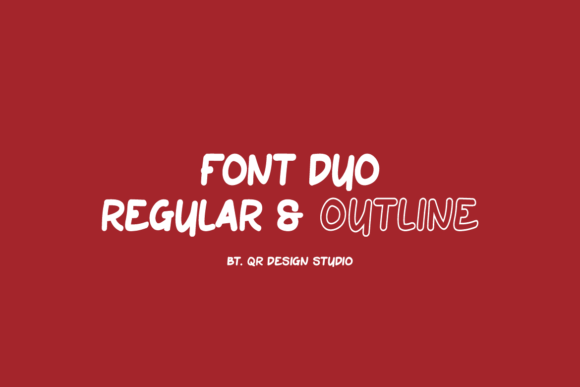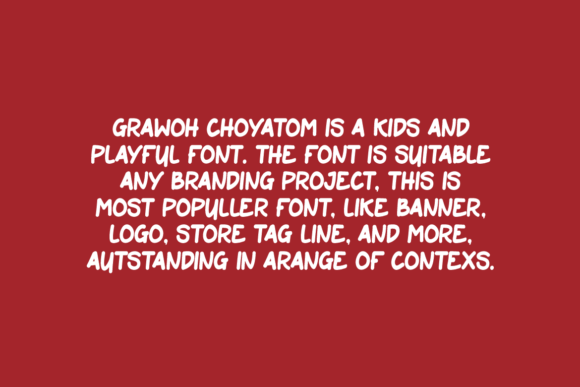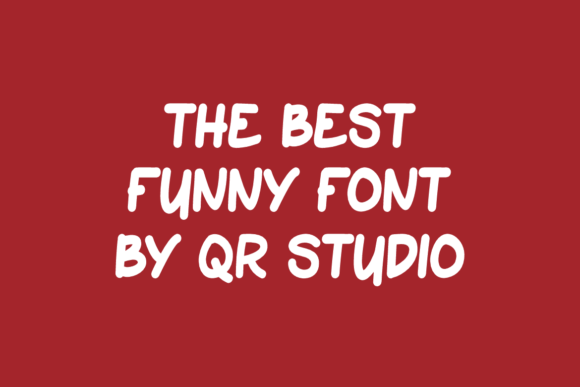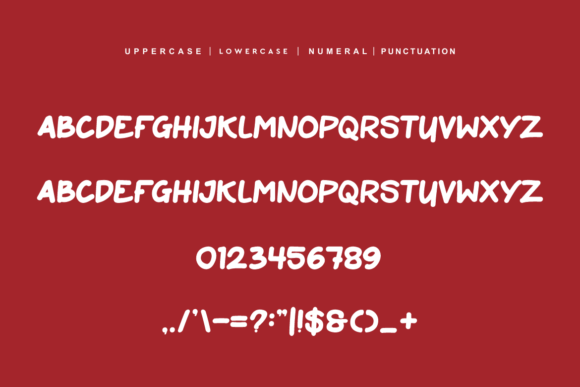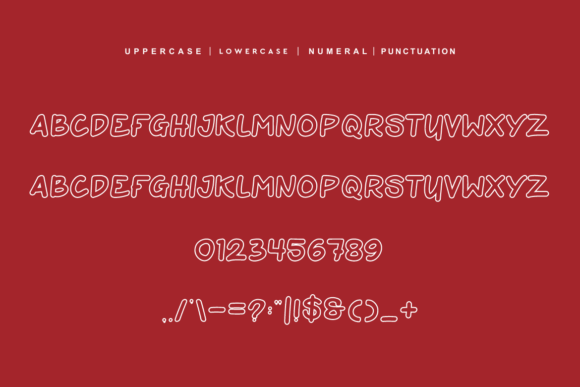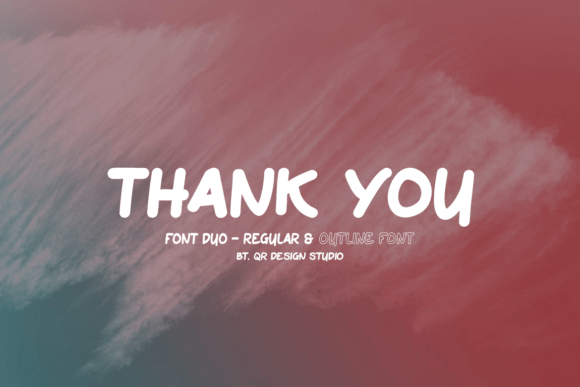
Introducing Grawoh Choyatom Font: Elevate Your Designs with Style and Versatility
In the world of typography, a font can make or break a design. For designers and crafters looking for that perfect blend of style, versatility, and creativity, the Grawoh Choyatom Font duo is an exciting discovery. This font pair isn’t just any ordinary collection; it’s a dynamic combination of a regular and outline font that opens up a myriad of design possibilities. Whether you’re working on a project that requires a modern touch or something with a bit more flair, Grawoh Choyatom is up to the task.
Aesthetic Appeal and Versatility
At first glance, the Grawoh Choyatom Font duo presents itself with a clean and modern aesthetic. This makes it an excellent choice for designers aiming to infuse their work with a contemporary feel. However, what truly sets it apart is its unique and creative flair. The combination of a regular font, which offers clarity and readability, and an outline font, perfect for making bold statements, allows for a dynamic range of applications. From digital media to print, this font duo adapts seamlessly, making it a valuable addition to any designer’s toolkit.
Perfect for Eye-Catching Posters and Flyers
One of the standout applications for the Grawoh Choyatom Font is in the creation of eye-catching posters and flyers. The outline version of the font is particularly effective when used for bold headlines. Its unique outline style not only grabs attention but also adds a layer of sophistication and creativity to any design. Meanwhile, the regular version of the font steps in to provide clear and readable supporting text. This ensures that your message is not only seen but also understood, making your posters and flyers both visually appealing and effective in communication.
Beyond Posters: Exploring More Design Possibilities
The versatility of the Grawoh Choyatom Font duo extends far beyond posters and flyers. Its applications are as diverse as the imagination allows. For instance, in digital design, the font can be used to create engaging social media graphics, compelling website headers, and even interactive elements for apps and websites. The contrast between the solid and outline fonts can add depth and interest to any digital platform, making it more engaging for users.
In the realm of crafting and personal projects, this font duo can add a professional touch to handmade cards, scrapbooking, and DIY signage. The ability to mix and match the regular and outline fonts offers endless opportunities for customization, allowing crafters to put their personal stamp on any project.
Why Choose Grawoh Choyatom Font?
- Versatility: With both regular and outline versions, this font duo can cater to a wide range of design needs.
- Modern Aesthetic: Its clean and contemporary look makes it perfect for projects that demand a modern feel.
- Creative Flair: The unique outline font adds a creative touch that can elevate any design.
- Readability: The regular font ensures that your text remains clear and easy to read, even at smaller sizes.
The Grawoh Choyatom Font duo is more than just a collection of letters; it’s a design tool that offers flexibility, creativity, and a modern edge. Whether you’re a professional designer looking to expand your typography options or a crafter seeking to add a professional touch to your projects, this font pair is an excellent choice. Its versatility and aesthetic appeal make it suitable for a wide range of applications, from posters and flyers to digital design and crafting projects. With Grawoh Choyatom, the possibilities are endless, and the potential for creating something truly unique and captivating is at your fingertips.